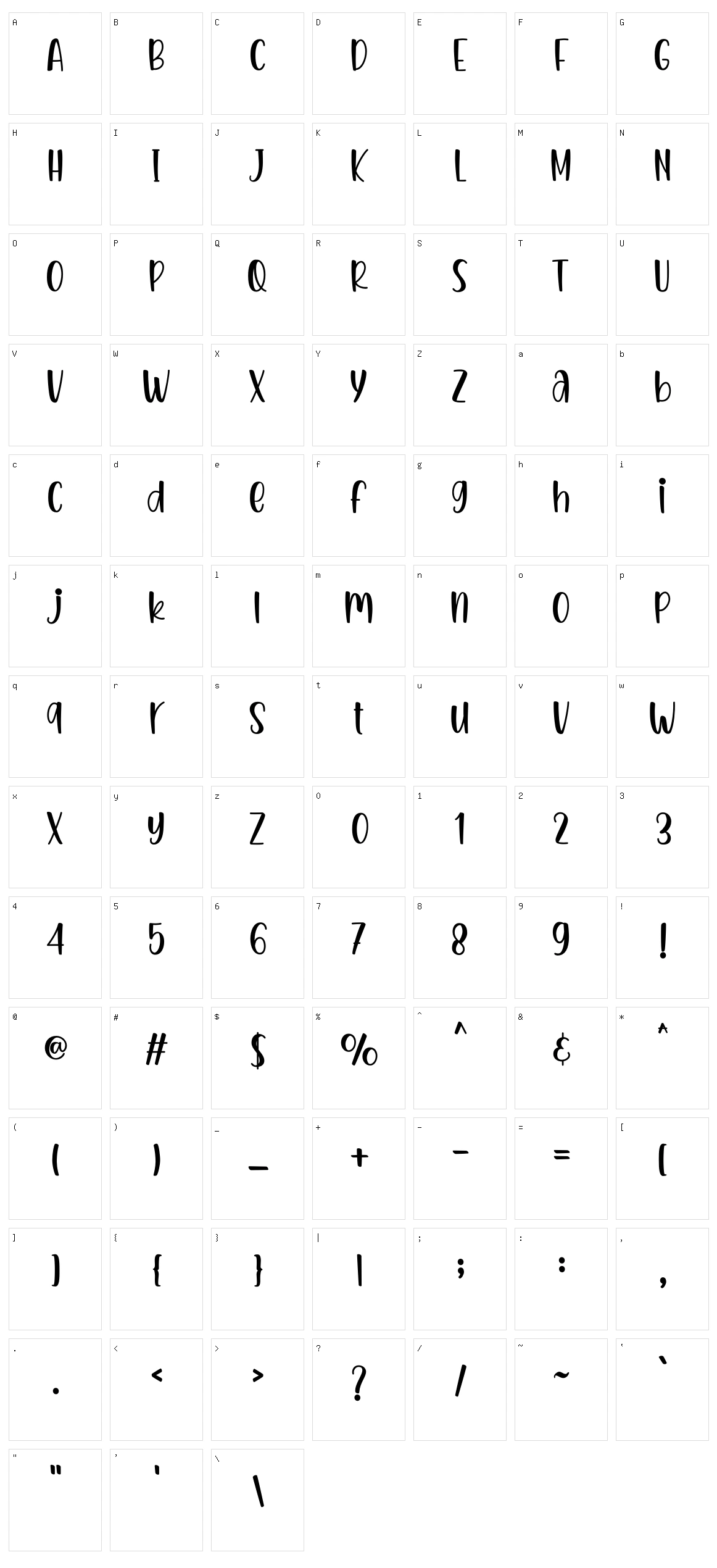
The free font Little Princess is carefully designed by Nirmala Creative, showcasing a thoughtful balance of creativity and usability and falls under the Cartoon font style. When you download the ZIP file, it contains only 114.17 KB of font files, making it lightweight and quick to download. Please review the license details below to understand permitted usage and distribution rights. If license information is not available, we recommend using this font for personal projects only or contacting the author directly for commercial usage permissions.